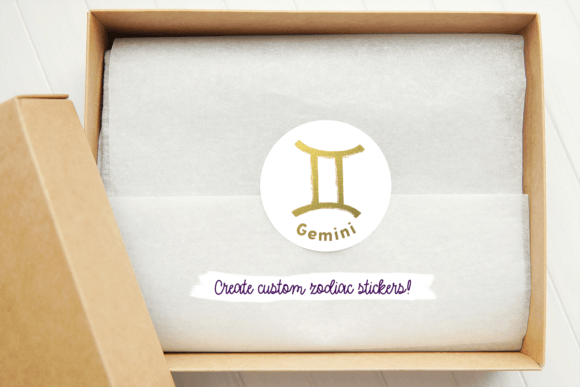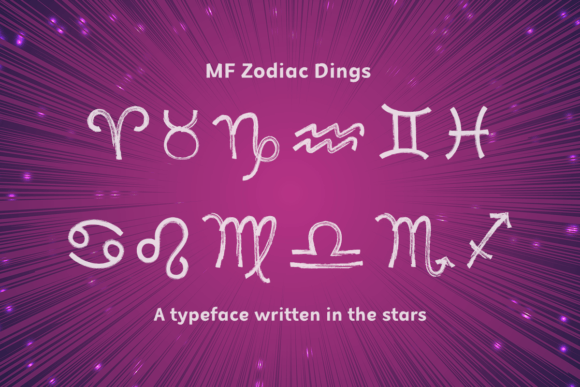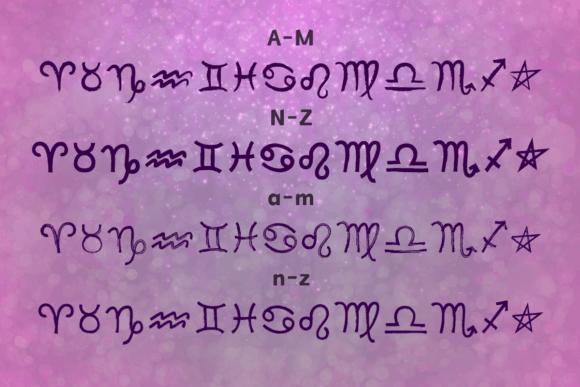
ABOUT MF ZODIAC DINGS FONT
“MF Zodiac Dings” is a fun and versatile dingbats font that features four hand-drawn versions of the 12 astrological signs. With its unique and whimsical style, this font is perfect for adding a touch of astrology to various designs, particularly on astrology websites, books, and products.
The font includes four different variations of each astrological sign, allowing you to choose the style that best suits your design preferences. Whether you prefer a bold and expressive representation or a more delicate and intricate illustration, “MF Zodiac Dings” offers options to accommodate different design styles and requirements.
Astrology websites can benefit greatly from the use of “MF Zodiac Dings” as it adds visual interest and enhances the overall theme. You can incorporate the astrological symbols into your website’s graphics, banners, or even as standalone elements for emphasis. By using this font, you can create a cohesive and visually appealing astrology-inspired design that engages visitors and adds a touch of mystique.
For books related to astrology or horoscopes, “MF Zodiac Dings” provides a creative way to incorporate the astrological signs into chapter headings, page decorations, or even cover designs. The hand-drawn style adds a personal and artistic touch to the book’s visual elements, making it more visually captivating and appealing to readers interested in astrology.
Furthermore, “MF Zodiac Dings” can be used to create zodiac-themed products such as apparel, accessories, or home decor items. Whether you’re designing sublimation projects, printing on fabric, or creating merchandise, the font’s astrological symbols will add a unique and personalized touch to your creations. From zodiac-themed t-shirts to astrology-inspired mugs or jewelry, the possibilities are endless.
In summary, “MF Zodiac Dings” is a fun and versatile dingbats font that offers four hand-drawn versions of the 12 astrological signs. It is perfect for astrology websites, books, and products. By incorporating the font’s astrological symbols into your designs, you can add a touch of mystique and personality. Whether you’re creating zodiac-themed sublimation projects or enhancing your astrology-related materials, “MF Zodiac Dings” will help you create awesome and captivating designs with ease.